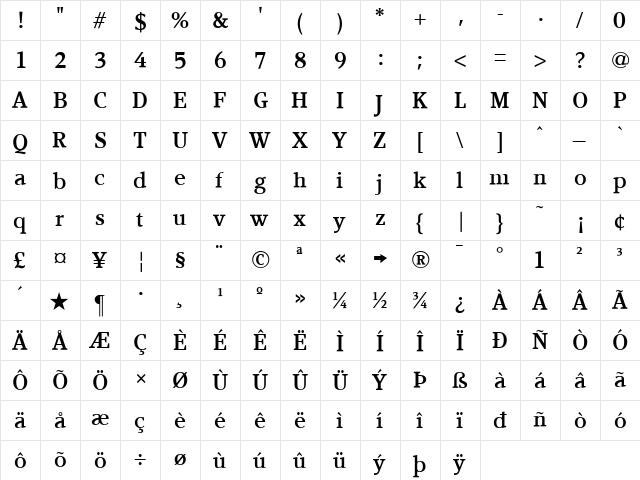
Kandal Regular Font Preview
Kandal Regular
Design Context for Kandal Typeface
Kandal takes a measured approach to typography — its balanced proportions and neutral character make it a reliable workhorse for both digital and print work.